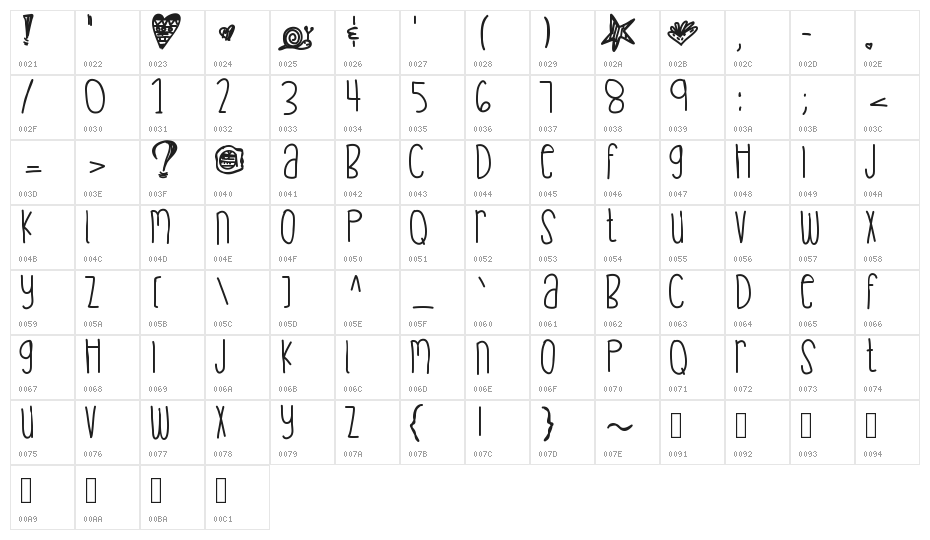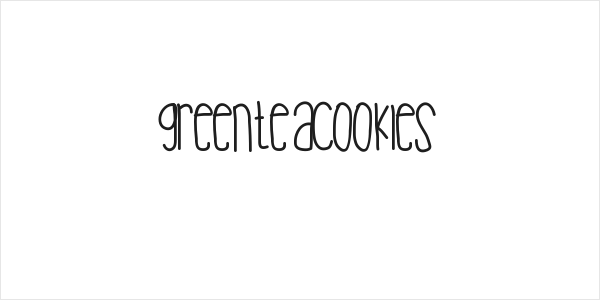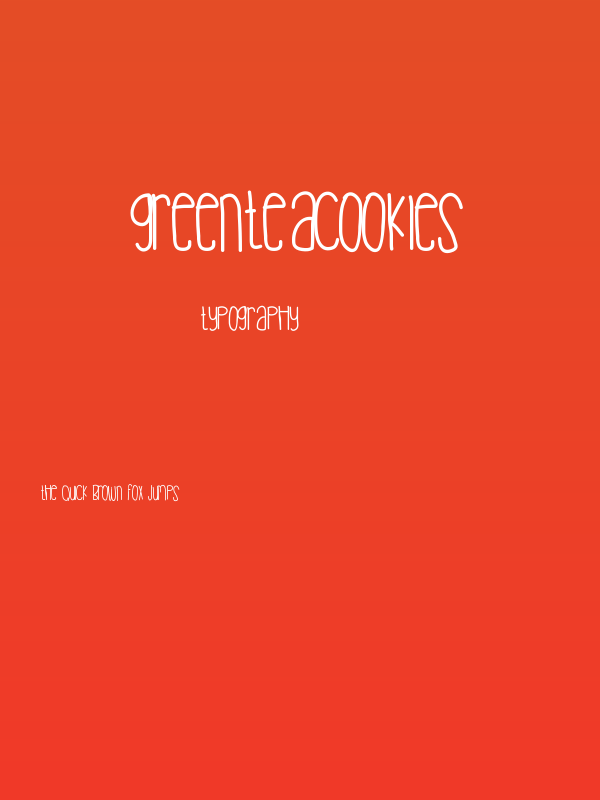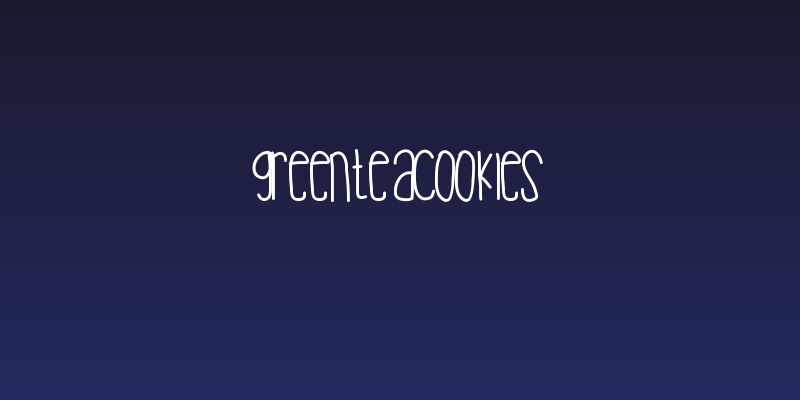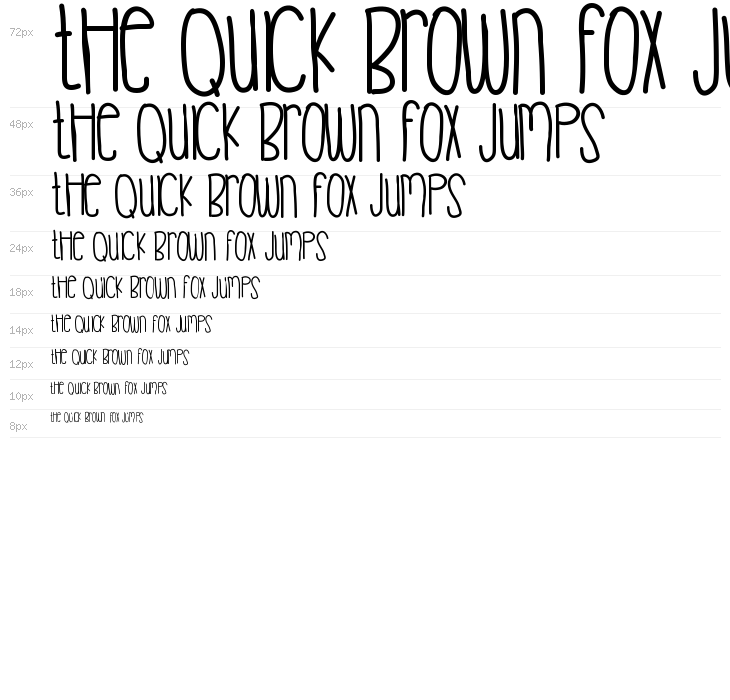
Greenteacookies Font
Greenteacookies Description
This playful and whimsical font features tall, narrow letters with a hand-drawn aesthetic. The characters are slightly irregular, giving them a charming, informal appearance. The uppercase and lowercase letters maintain a consistent style, with elongated vertical strokes and rounded edges. Numbers and special characters follow the same quirky design, adding to the font's cohesive look. The overall feel is casual and friendly, making it suitable for creative and lighthearted projects.
| Proposed Projects | Ideal for children's books, greeting cards, playful branding, and creative posters. |